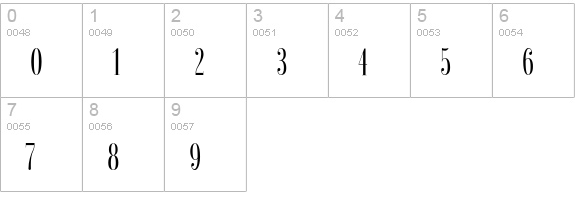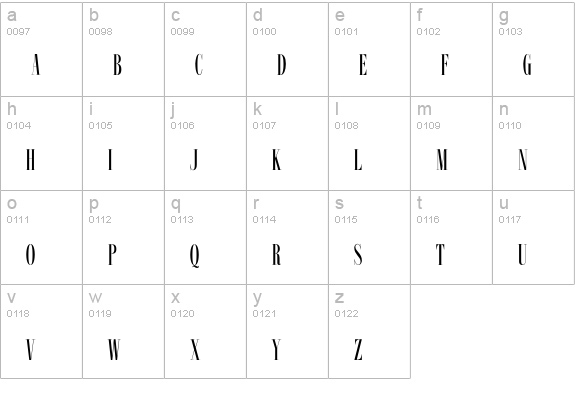
ImprimeurNouveauEF-Reg Font Details
ImprimeurNouveauEF-Reg is a stunning font that combines elegance and sophistication, making it the perfect choice for any design project. With its unique and stylish letterforms, this font is sure to capture attention and leave a lasting impression. One of the most remarkable aspects of ImprimeurNouveauEF-Reg is that it is available for free. Yes, you read that right - this incredible font can be downloaded at absolutely no cost. Whether you are a professional designer or an aspiring artist, having access to high-quality fonts without breaking the bank is essential. ImprimeurNouveauEF-Reg offers a multitude of possibilities when it comes to typography. Its clean and legible characters make it suitable for a wide range of applications, from branding and logo design to editorial layouts and web design. The versatility of this font allows it to adapt seamlessly to various design styles and aesthetics. Downloading ImprimeurNouveauEF-Reg is a breeze. Simply head over to FontsMarket.com, a reputable website known for its extensive collection of fonts, and find this font in their vast library. With just a few clicks, you can have this remarkable font at your fingertips, ready to elevate your design projects to new heights. Don't miss out on the opportunity to enhance your designs with ImprimeurNouveauEF-Reg. Download this font for free and unlock a world of creative possibilities.